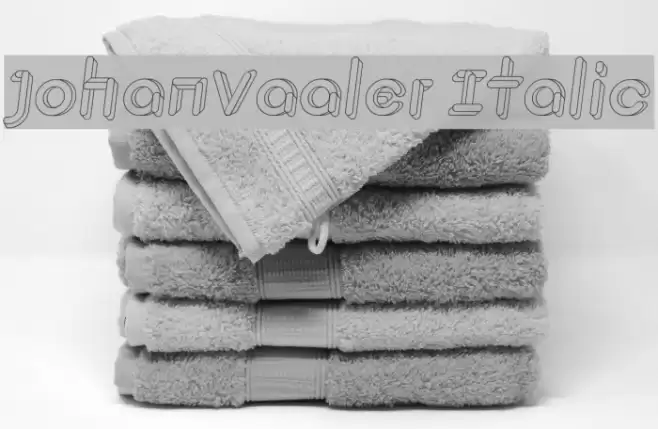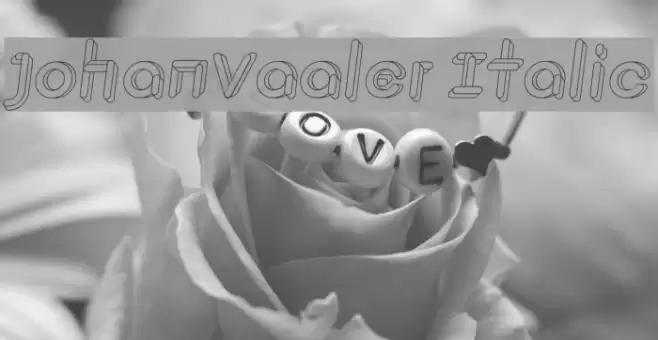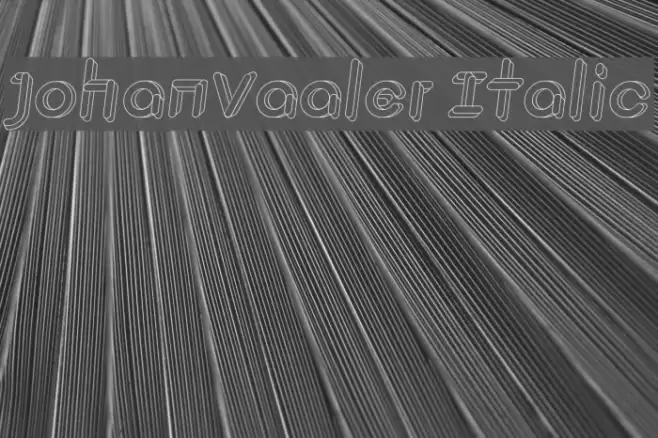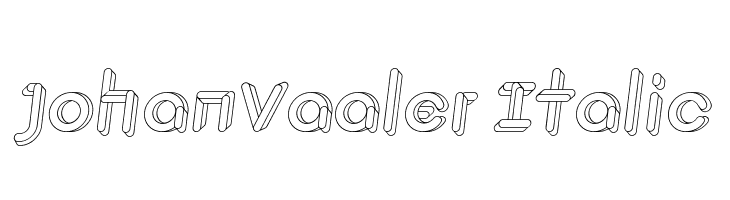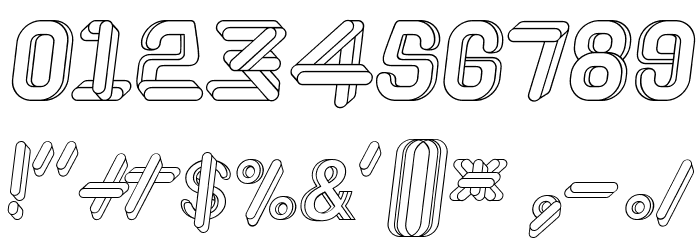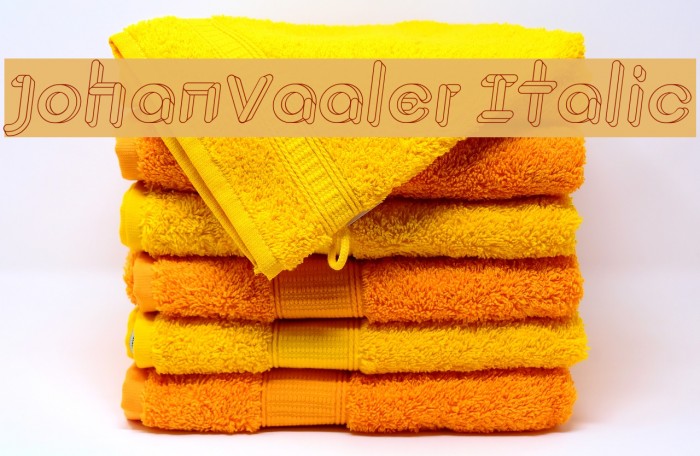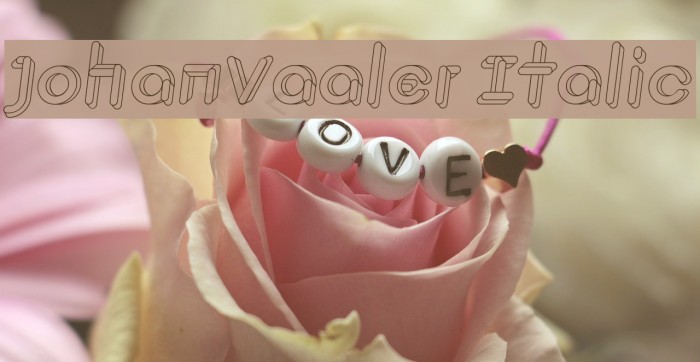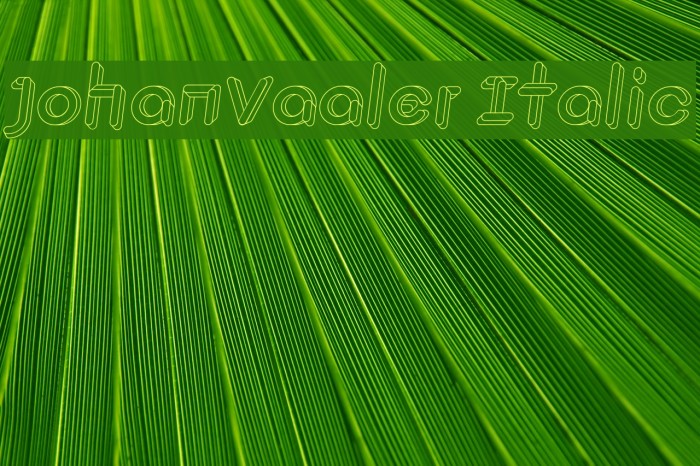
JohanVaaler Italic Font
JohanVaaler Italic Description
This font features a unique, three-dimensional outline style that gives each character a sense of depth and movement. The letters are italicized, adding a dynamic slant that enhances the overall visual interest. The design is bold and eye-catching, with a modern twist that makes it suitable for contemporary projects. Each character is constructed with a double-line effect, creating an illusion of shadow and volume. The font maintains a consistent width and spacing, ensuring readability while still offering a playful and artistic appearance. Its distinctive style makes it ideal for creative and innovative design applications.
A bold, three-dimensional italic font with a modern, dynamic style from Uncategorized fonts.